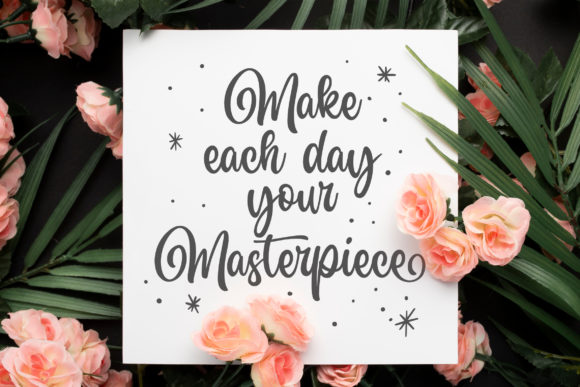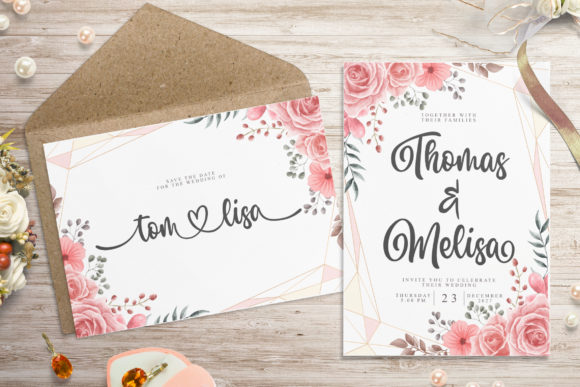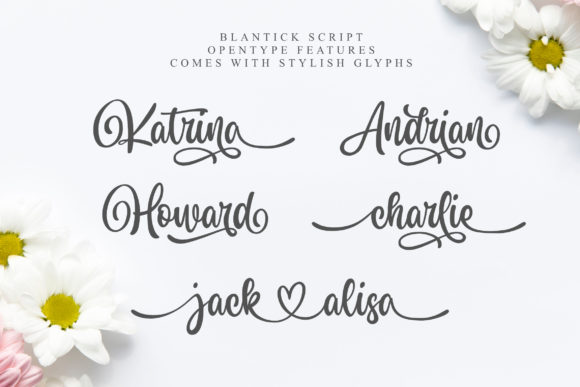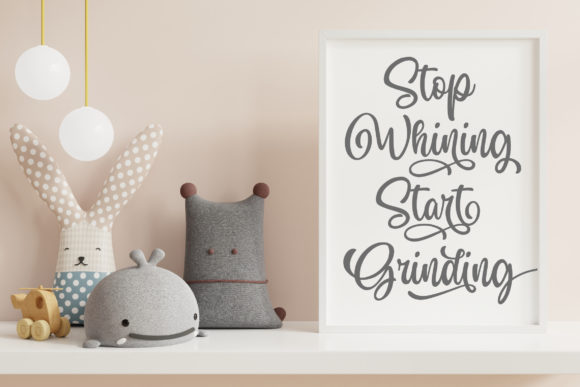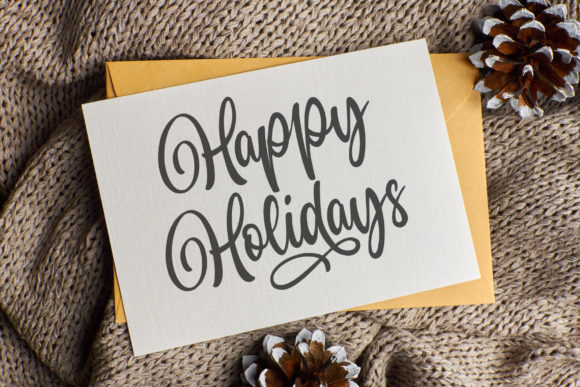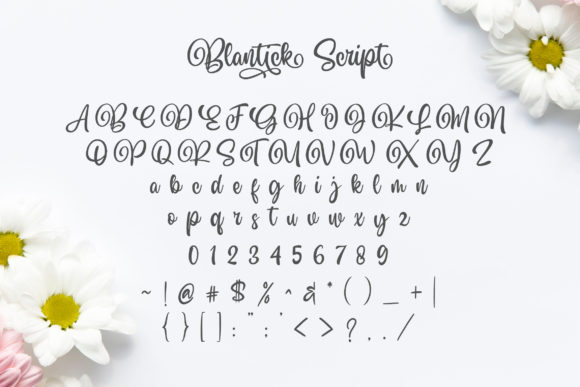
Introducing Blantick Font: The Sweet and Friendly Handwritten Font for Your Creative Projects
Are you a designer, crafter, or DIY enthusiast looking for a unique and friendly font to elevate your creative projects? Look no further than Blantick Font! Blantick Script is a sweet and friendly handwritten font that is sure to capture the hearts of your audience. Its natural and unique style makes it incredibly fitting for a large pool of designs, and the only limit is your imagination!
What Makes Blantick Font So Special?
Blantick Font is a one-of-a-kind handwritten font that boasts a distinctive and charming style. Its sweetness and friendliness make it perfect for a wide range of projects, from whimsical crafts to elegant designs. The font’s natural and unique style gives it a personal touch that will set your creations apart from the rest.
Endless Possibilities with Blantick Font
The versatility of Blantick Font is one of its most appealing features. Whether you’re working on a:
- Wedding invitation or announcement
- DIY craft project, such as a handmade card or scrapbook
- Branding or marketing material, like a logo or brochure
- Social media graphic or blog post
Blantick Font is the perfect choice. Its friendly and approachable style will add a touch of warmth and personality to any design.
Key Features of Blantick Font
Here are just a few of the key features that make Blantick Font so special:
- Handwritten style: Blantick Font is a genuine handwritten font, giving it a personal and unique touch.
- Sweet and friendly: The font’s sweetness and friendliness make it perfect for designs that require a touch of warmth and approachability.
- Natural and unique: Blantick Font’s natural and unique style sets it apart from other fonts, making it perfect for designers and crafters who want to add a personal touch to their creations.
- Highly versatile: Blantick Font can be used for a wide range of projects, from whimsical crafts to elegant designs.
Tips for Using Blantick Font
To get the most out of Blantick Font, here are a few tips to keep in mind:
- Pair it with other fonts: Blantick Font pairs well with other fonts, so don’t be afraid to experiment with different combinations to find the perfect look for your design.
- Use it for headings and titles: Blantick Font is perfect for headings and titles, where its unique style can really shine.
- Add some personality: Blantick Font is all about adding a personal touch to your designs, so don’t be afraid to get creative and add your own personality to your projects.
In conclusion, Blantick Font is a sweet and friendly handwritten font that is perfect for designers, crafters, and DIY enthusiasts. Its natural and unique style makes it incredibly fitting for a large pool of designs, and the only limit is your imagination! With its versatility, charm, and personality, Blantick Font is sure to become a favorite in your design toolkit.